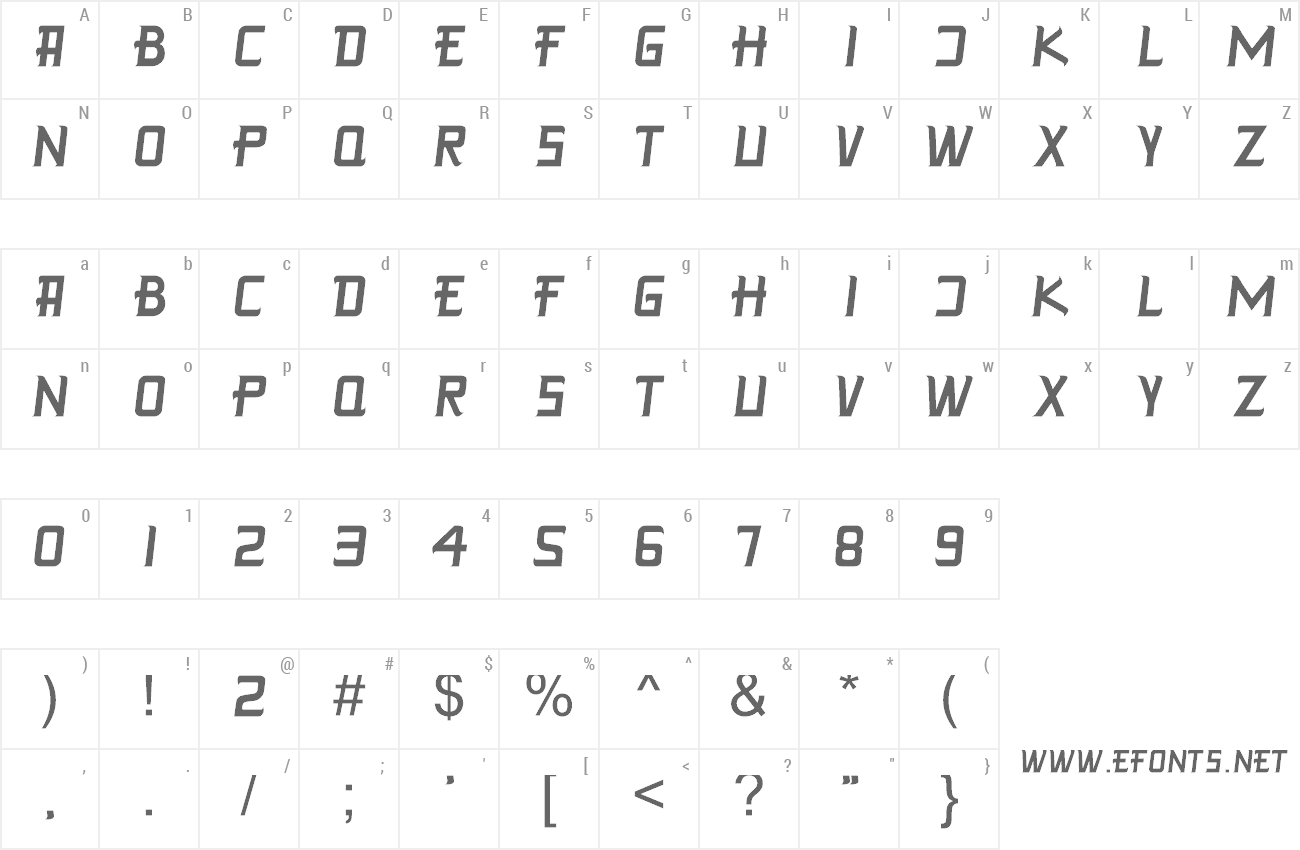
| Font name: | Definite Soul |
| Author: | MJB Letters |
| Note by MJB Letters | |
| The Definite Soul is a striking serif. It�s a strong and ravishing sans serif typeface. Perfect for adding a completely timeless look to your designs! |